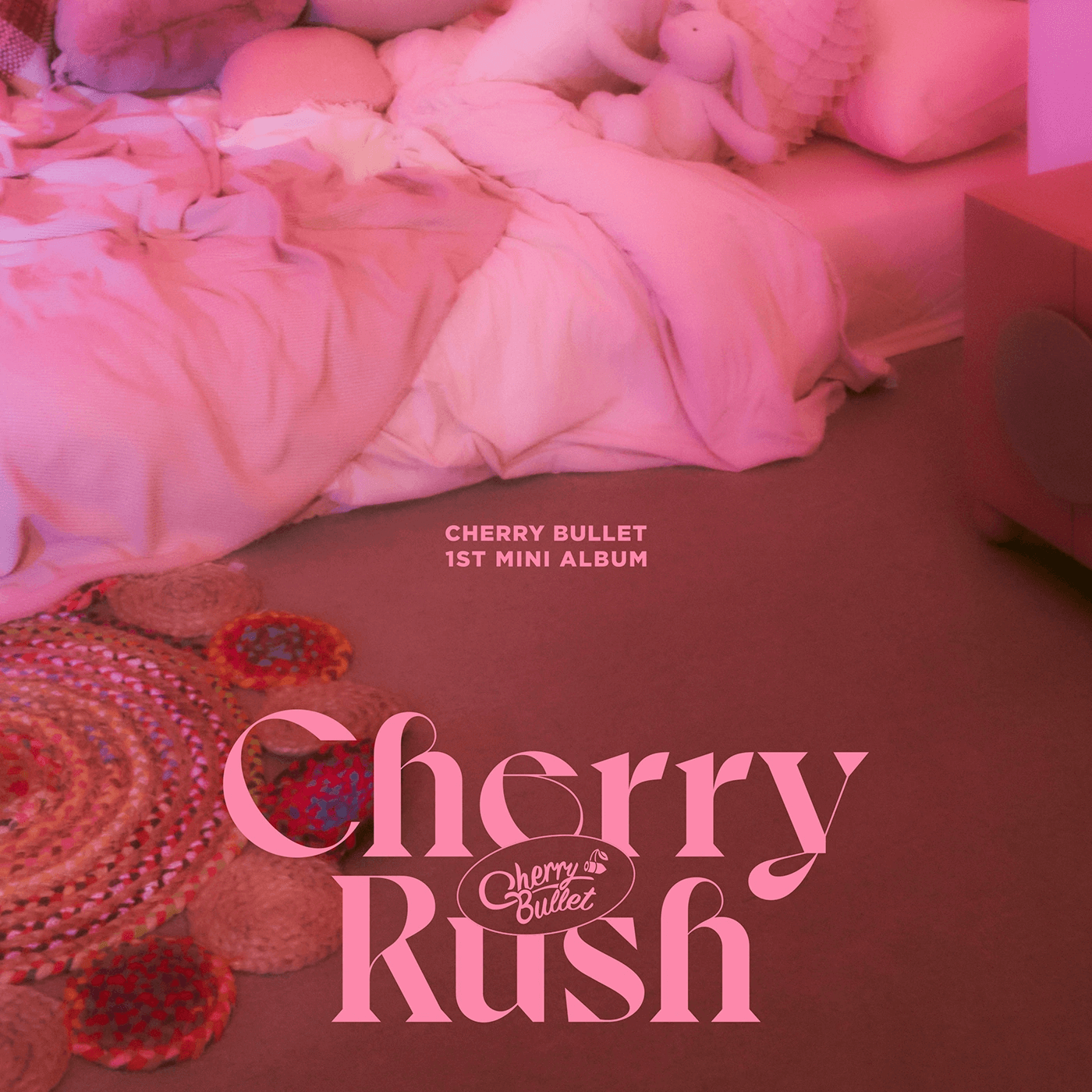
Cherry Rush Font
Fonts in UseCherry Rush (체리블렛) is the debut studio album by the South Korean girl group Cherry Bullet, released on January 20, 2020. The album contains 10 tracks, including the title track "Hands Up".
The font used for the album title is Voyage Bold, a display typeface designed by Jérémy Schneider and published by VJ-Type in 2019. The sans-serif font used on the cover art appears to be Gotham Ultra, while the group name bears a resemblance to Sign Painter Script from House Industries.